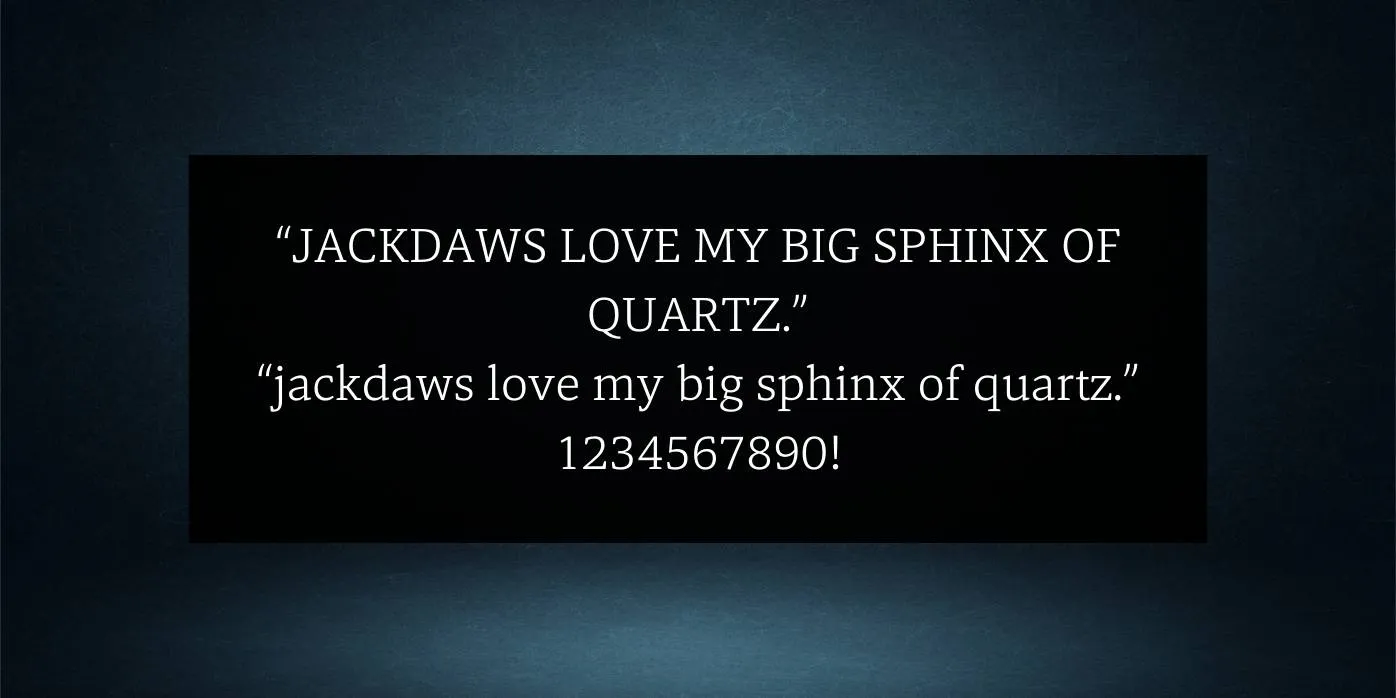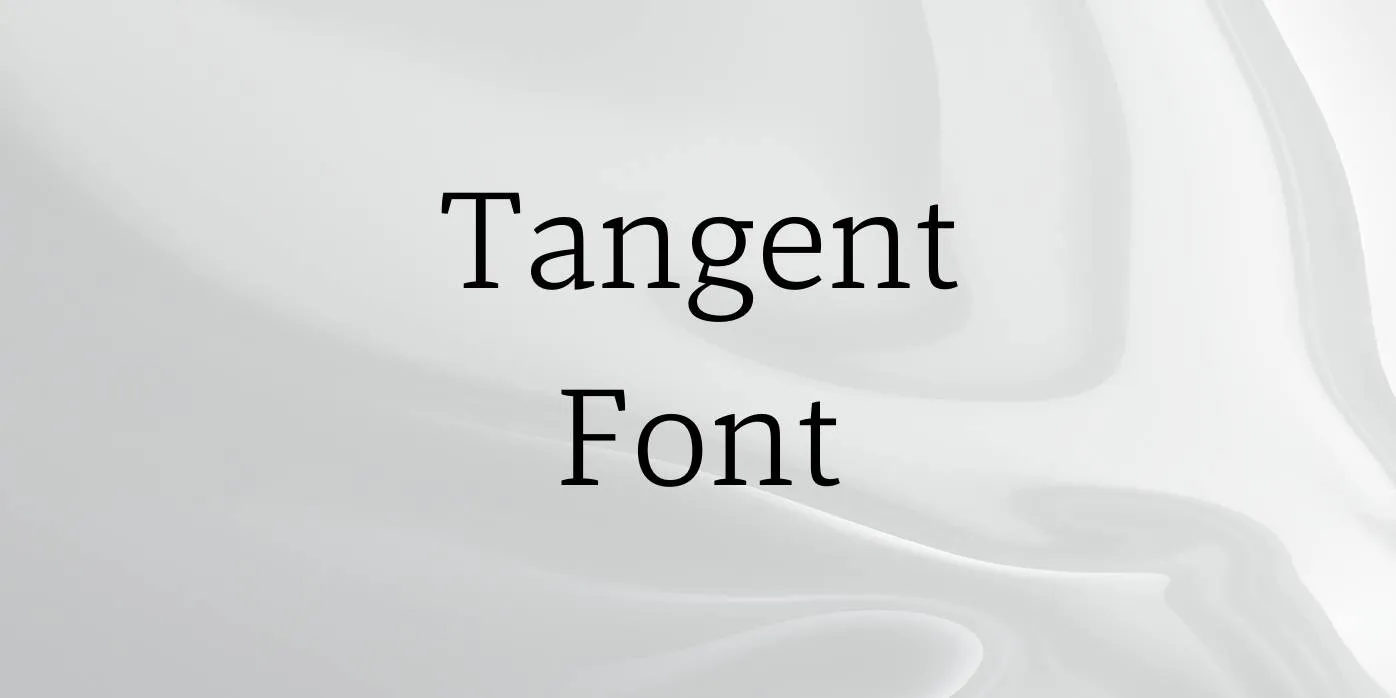
Tangent Font
In this article, we present Tangent Font which belongs to the serif family of fonts. This typeface was developed by Hoftype. The main aim of this font is to provide readability even in small sizes and on low-resolution screens. This font is available in four styles: regular, italic, bold, and bold italic.
This serif font has a very modern look and feels to it. The shapes of the letters are simple and sleek, and the overall effect is very clean and minimalistic. This awesome font is perfect for use in headlines or titles, as it will stand out and grab attention. You can also use calisto font which is closest to this font family.
It’s also a great choice for body text, as it is extremely legible. It is known for its copy-and-paste function. If you’re looking for a modern, stylish serif font then Tangent Font is definitely worth considering. It’s versatile and can be used in a variety of projects.